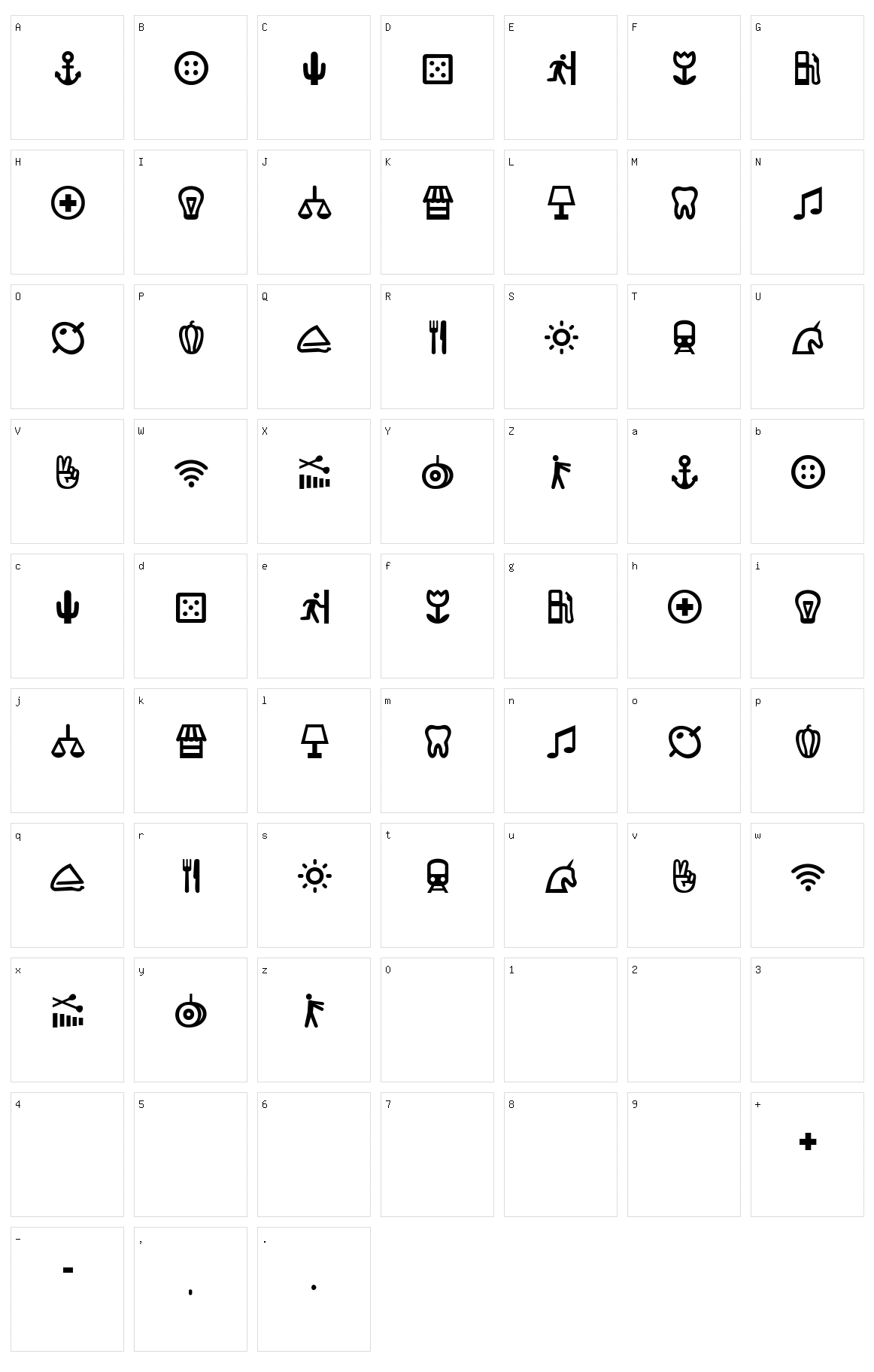
It is a Rebus font based on icons and symbols that can be intuitively decrypted and whose key words start by the same letter in English, Spanish and French.
This font comes with the 26 simple letters of the alphabet, capital and small letters have the same value.